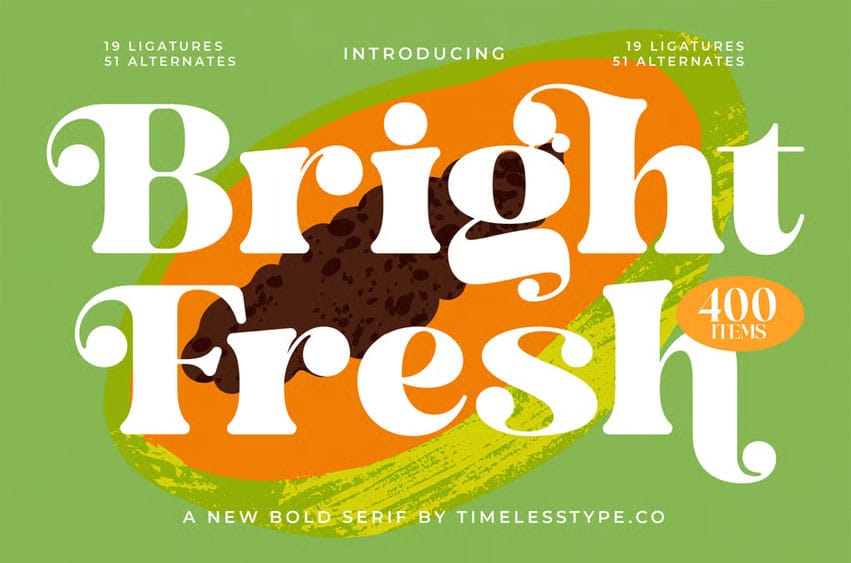
Bright Fresh Font is a bold serif display font infused with playful curves, chunky proportions, and vibrant character—designed to stand out effortlessly across modern branding and creative visual identities. With 19 expressive ligatures and 51 stylistic alternates, this typeface offers a versatile toolkit for crafting unique, energetic headlines, packaging designs, posters, logos, food branding, and fun editorial layouts.
Its soft edges and sculpted details bring a fresh, friendly personality that elevates any design with a lively, contemporary flair, making it ideal for creators seeking a bold type style that feels both joyful and refined.